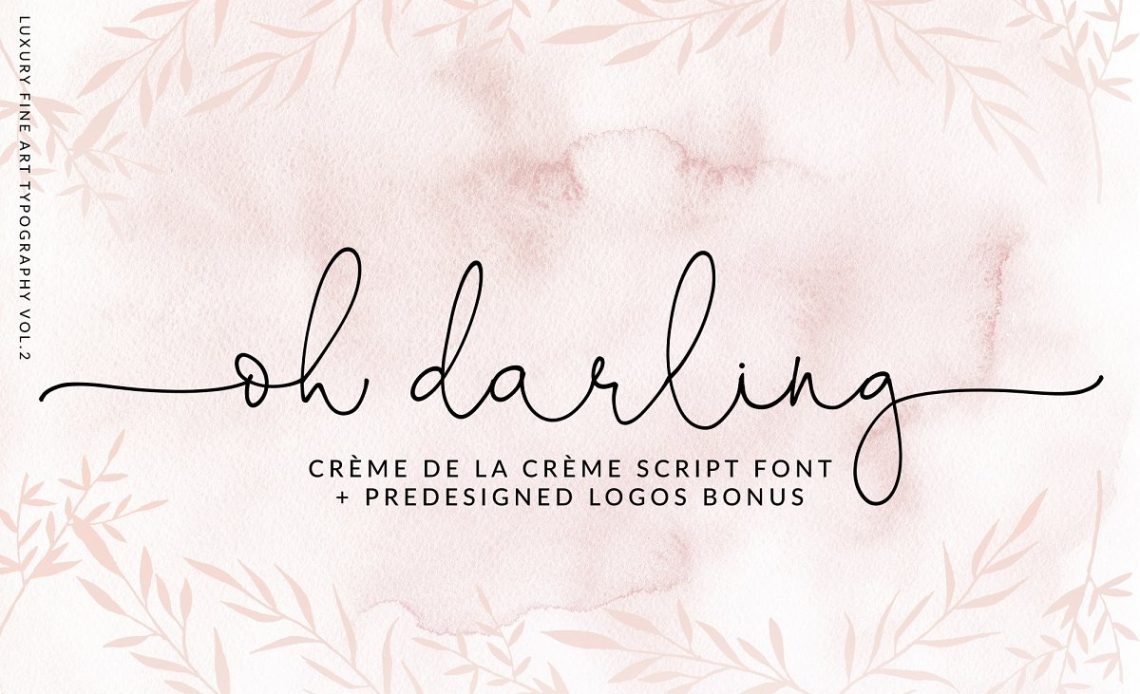
Introducing Oh Darling, the ethereal script font that will elevate your website and branding to the next level. Created by PeachCreme, this font is the perfect choice for those looking for the best font for a modern website. With additional swashes included, you can add an extra touch of charm to your designs, making them stand out from the rest.
Oh Darling is a luxury fine art typography vol. 2 font that exudes elegance and sophistication. Its adorable touch and realistic hand-lettered style will capture your heart, making it the perfect choice for event invites, branding, and lovely Instagram posts.
One of the best things about Oh Darling is the full set of charming uppercase and lowercase international letters, numerals, and a large range of punctuation and ligatures. Additionally, all lowercase letters come with beginning and ending swashes, making it easy to achieve a hand-lettered look.